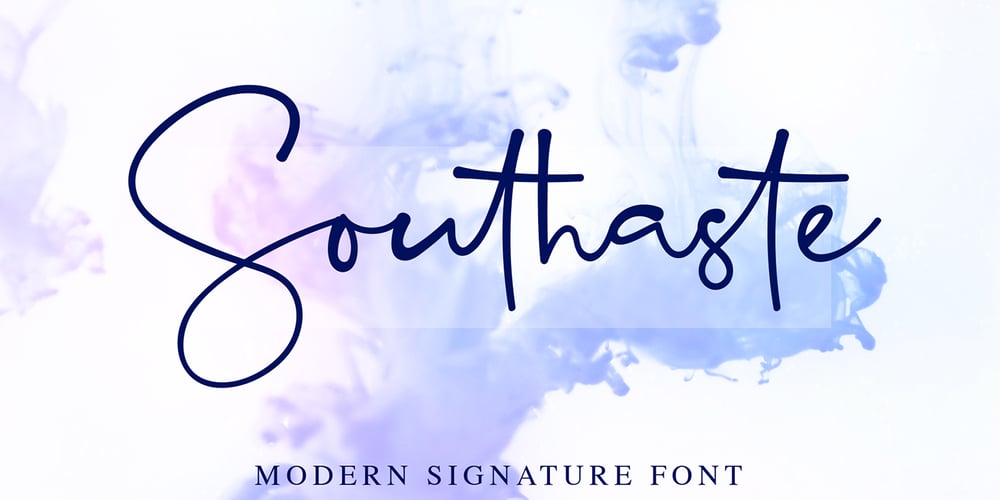
Southaste Font Family was designed by Agung Rohmat and published by alphArt. Southaste contains 1 styles and family package options. Southaste – a Signature Font is a handwritten script font with a simple and modern style, this font is great for your next creative projects such as watermark on photography, signature or signature logo design, quotes, album cover, business card, and many other design project. From business cards to photo watermarks, Southaste is here to elevate your work to the highest level. Southaste comes with uppercase letters, lowercase alternative letters, numbers, punctuation, 47 ligature and multi lingual support note : to use alternative end text is just block end letters and select alternative letters on glyphs option. it may be used in almost any program by using your Operating System’s utilities (CharacterMap for Windows and Font Book for Mac.), as well as Illustrator, Photoshop CC 2017 and several other applications. We hope you enjoy this font. If you have any questions please don’t hesitate to drop me a message 🙂 Thank you, Best regards alphArt